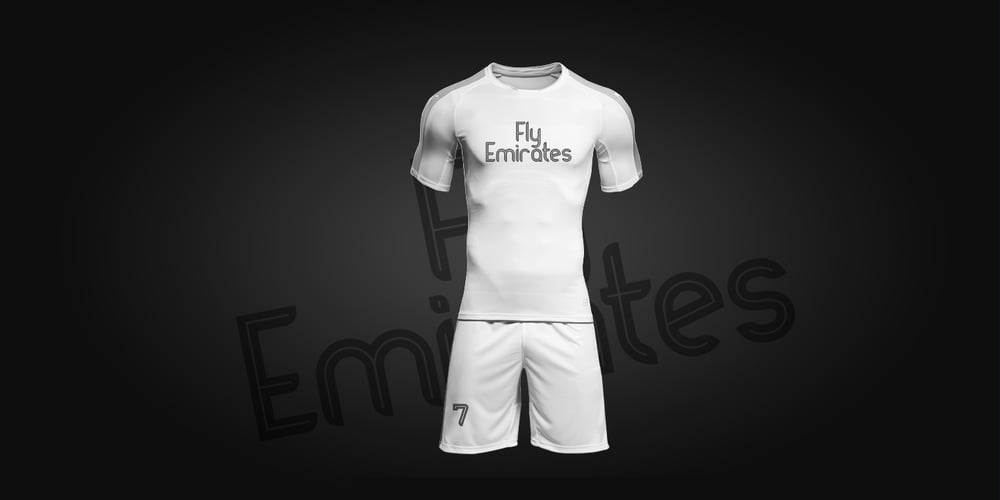
Pierce Font Family was designed by Suandana ipandemade and published by madeDeduk. Pierce contains 3 styles and family package options. Really excited to introduce Pierce, a modern typeface with two style solid and inline font files which makes this font suitable for any of your design projects. Features – Character Set A-Z – Numerals & Punctuations (OpenType Standard) – Accents (Multilingual characters) If you need anything else just shoot me on email at: dedukvic@gmail.com. Hope you enjoy it.